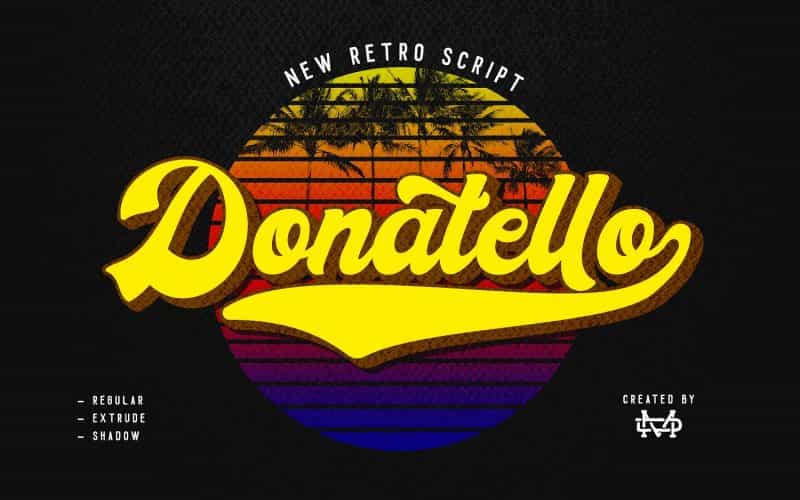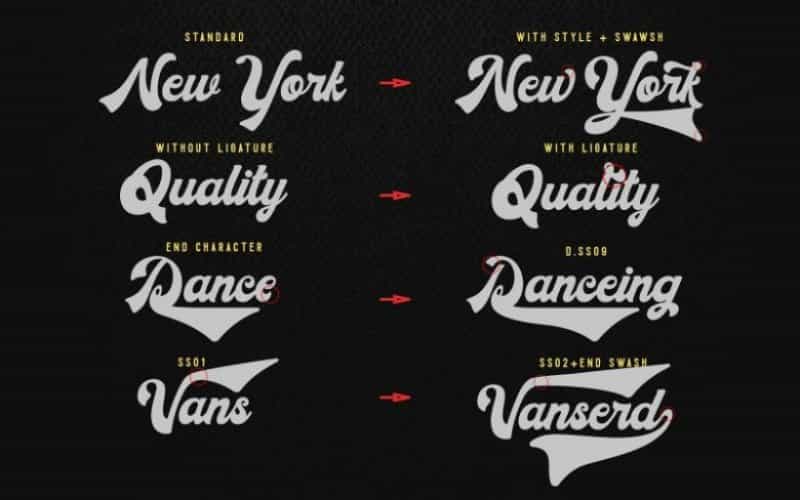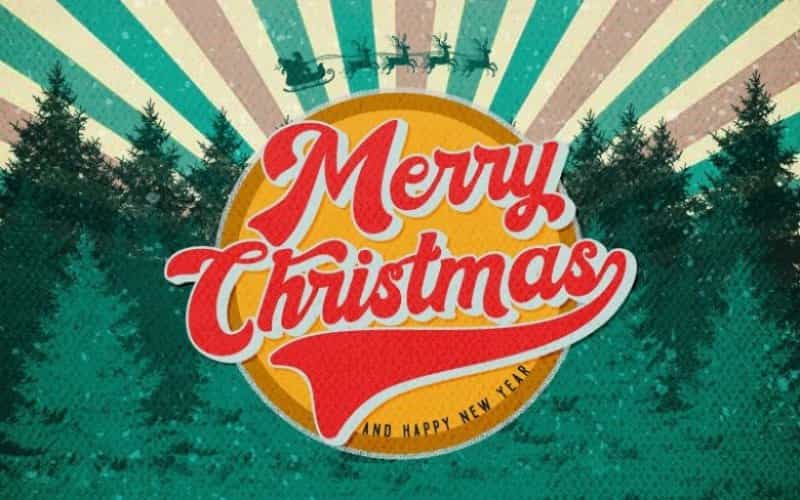
Donatello Script Font
I am so looking forward to presenting to you Donatello Retro Script which is just fantastic with its Regular, extrude & Shadow style so that you can save a lot of time for design.